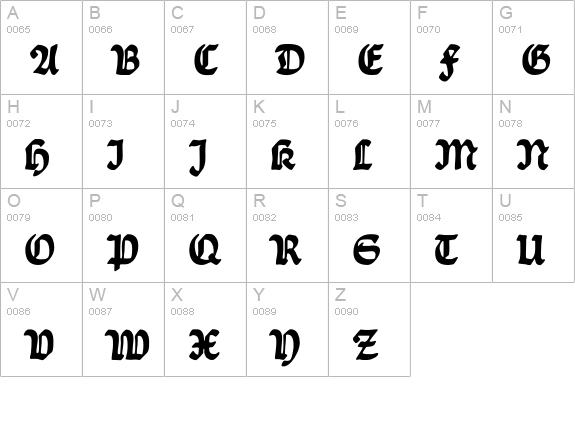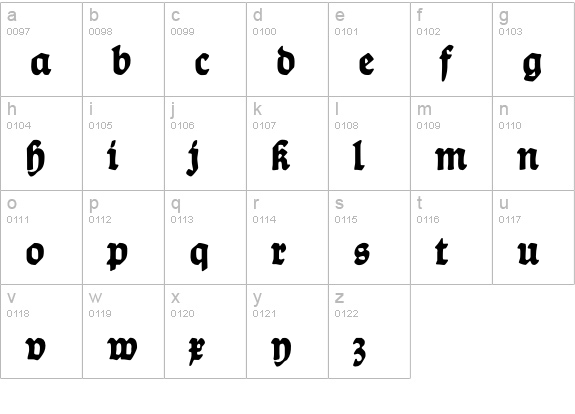
Ballade Bold Font Details
Ballade Bold is a strong, high-contrast variant in the Ballade typeface family \xE2\x80\x94 well suited to headlines, attention-grabbing titles, and strong calls-to-action.
Ballade Bold is a striking and elegant typeface that exudes confidence and sophistication. Its bold and clean lines make it perfect for headlines, logos, and branding projects that require a strong and impactful visual presence. The timeless appeal of Ballade Bold makes it a versatile choice for both print and digital designs. This font is available for free download at FontsMarket.com, where you can easily access and use it for your personal and commercial projects. With its classic yet contemporary design, Ballade Bold is sure to make a lasting impression and elevate the overall look of your creations.